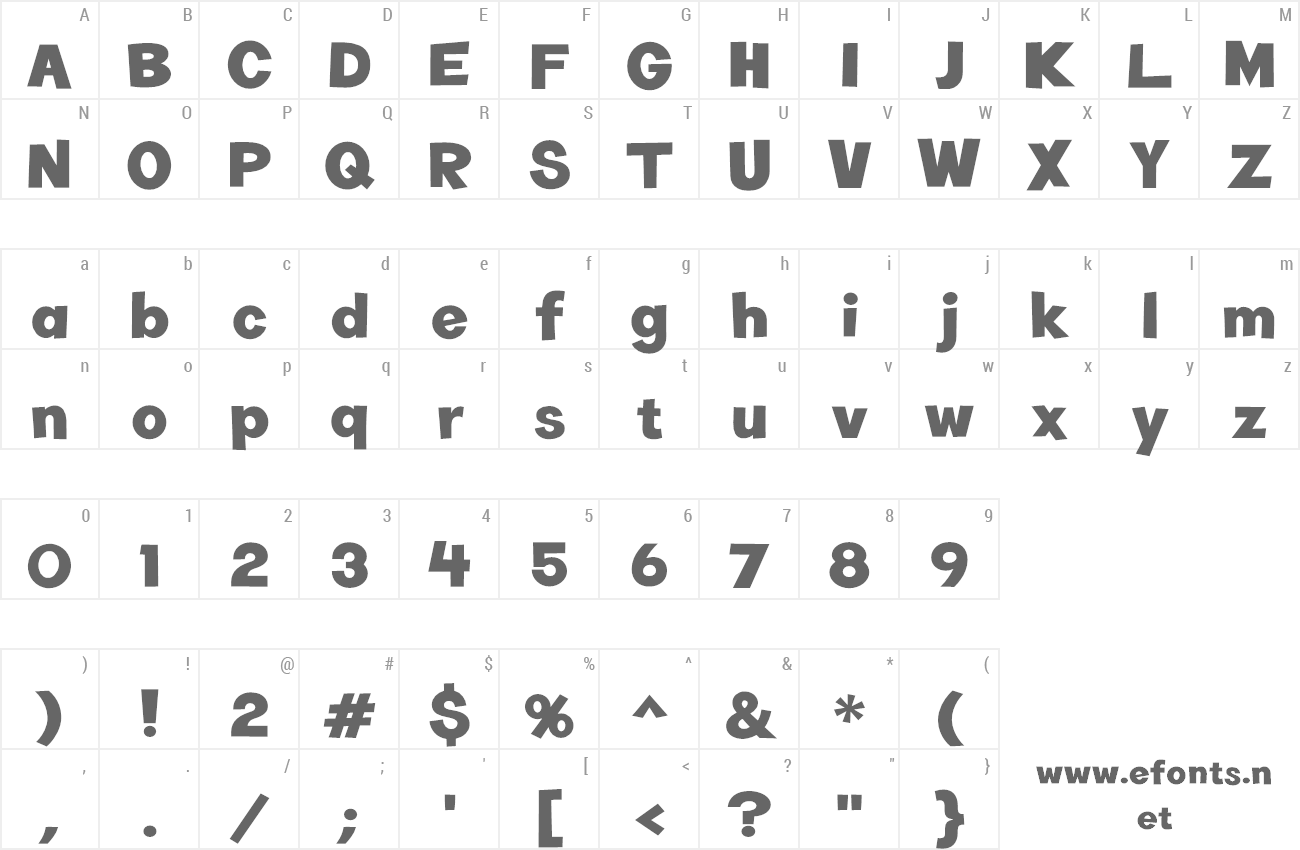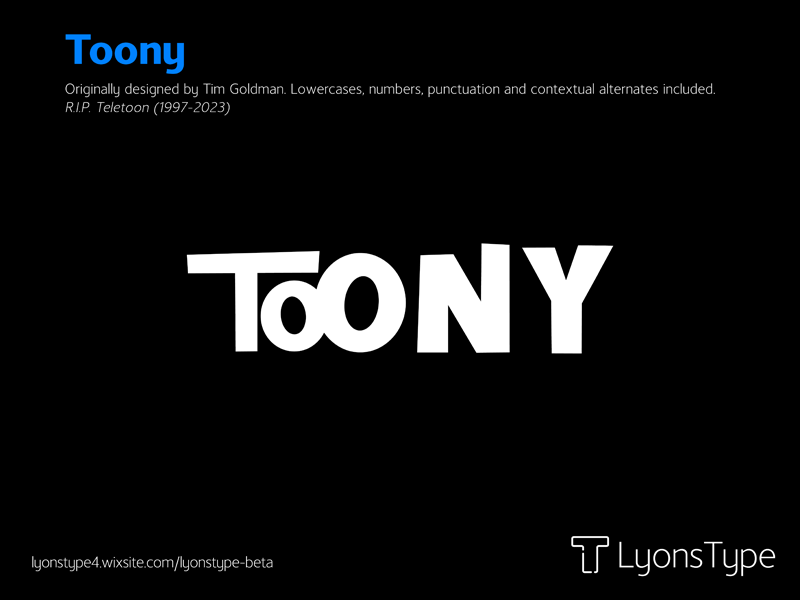
Preview and download Toony Font. Created by LyonsType in Fancy Cartoon styles with 100% Free license.
Originally designed by Tim Goldman. Lowercases, numbers, punctuation and contextual alternates included. R.I.P Teletoon (1997-2023) |